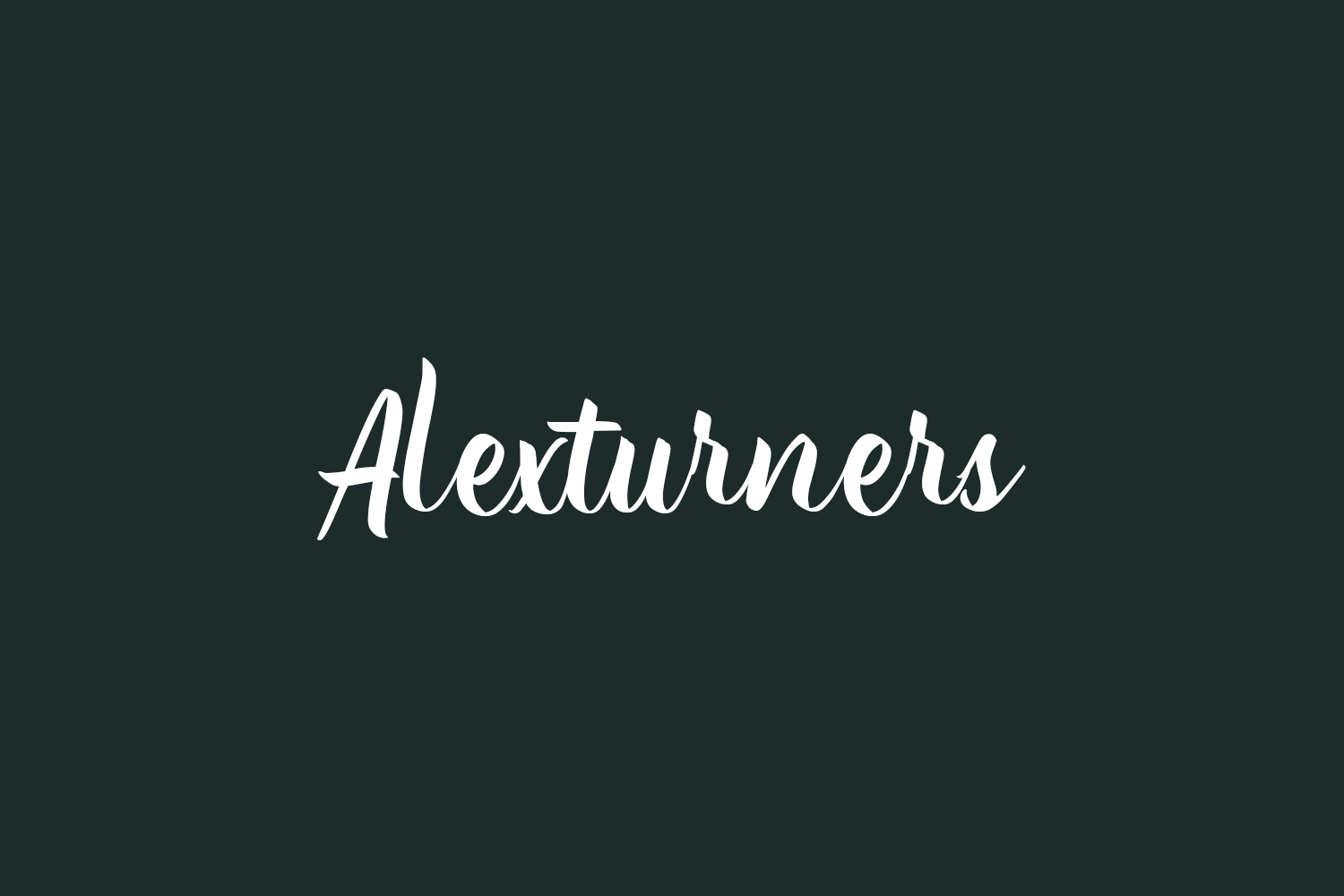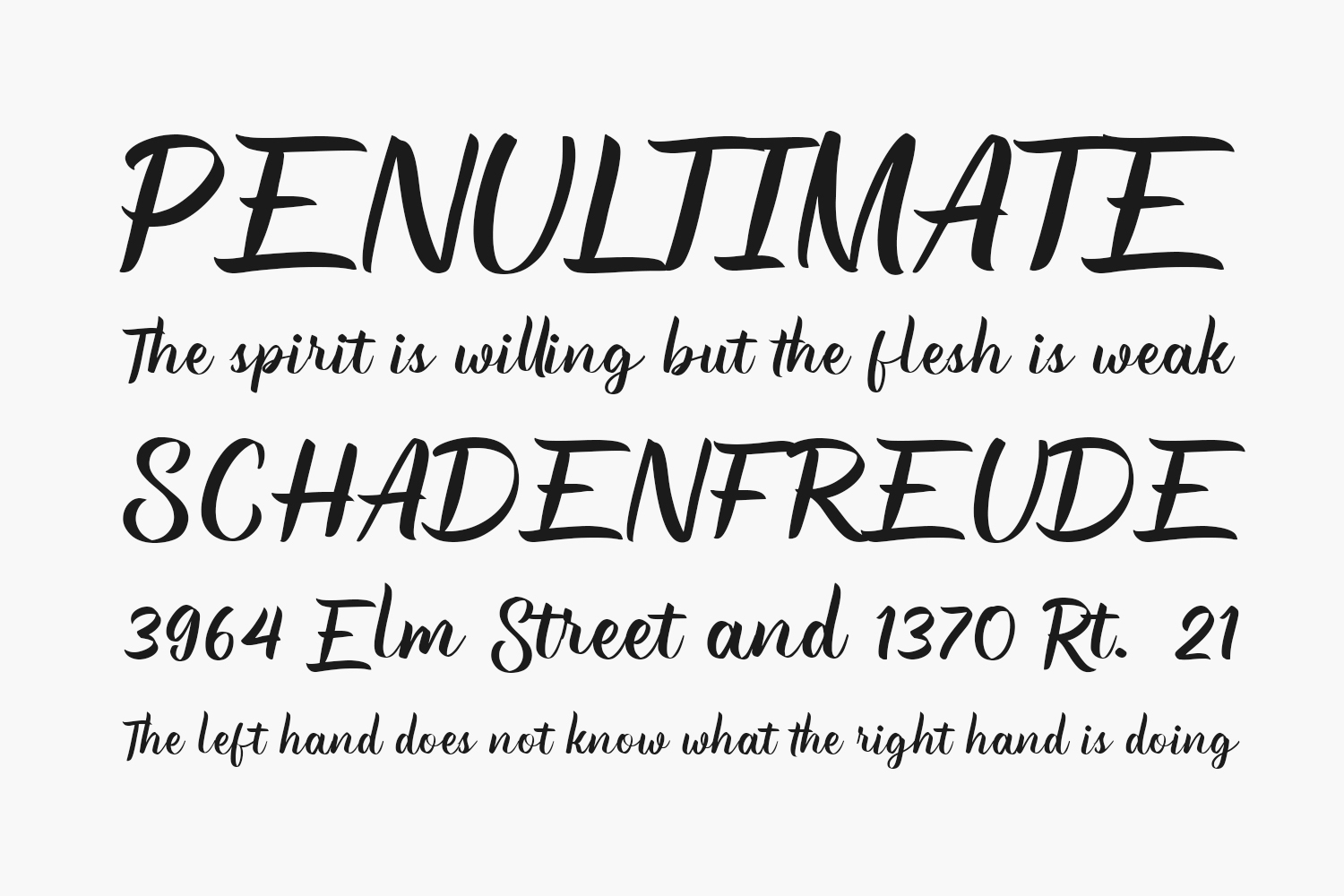
Alexturners Free Font feels equally charming and elegant. It looks stunning on wedding invitations, thank you cards, quotes, greeting cards, logos, business cards, and every other design which needs a handwritten touch. Alexturners Free Font was designed by Maulana Creative and is free for personal use only. Please purchase the full version for commercial use.